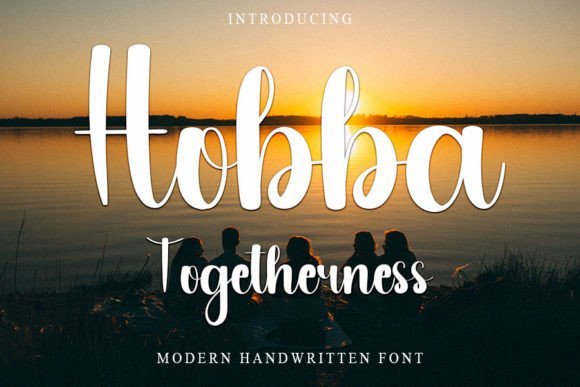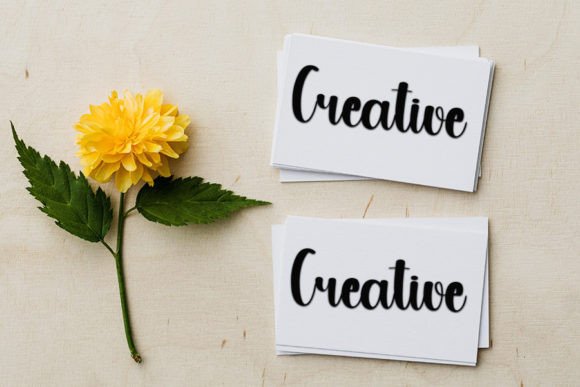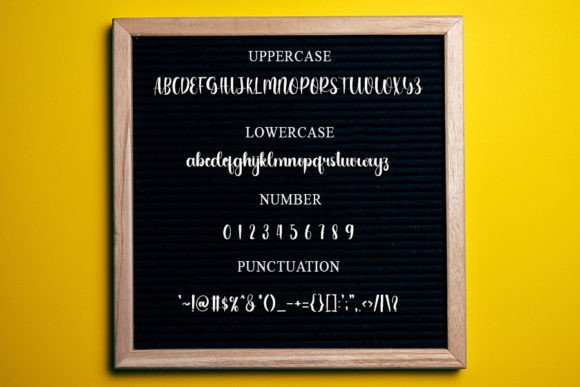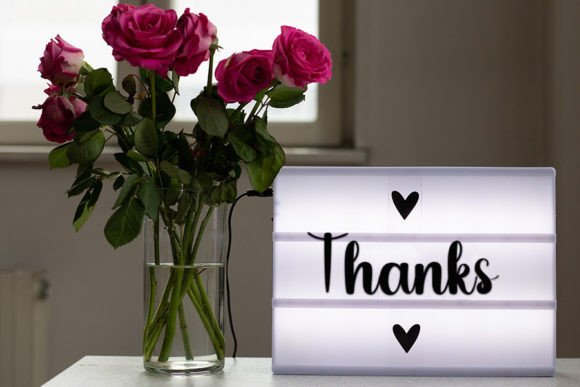
Discover the Magic of the Hobba Togetherness Font
Have you ever been working on a design project and suddenly, the perfect font pops into your mind? That’s exactly what happened to me when I stumbled upon the Hobba Togetherness Font. Its elegant touch and unique style had me hooked from the very beginning. I couldn’t wait to experiment with it and see what amazing designs I could create.
The Hobba Togetherness Font is a beautiful handwritten font that’s perfect for adding a touch of personality to your projects. Whether you’re a seasoned designer or just starting out, this font is sure to bring your designs to life. Its timeless style and distinct character make it a valuable addition to any designer’s toolkit, allowing you to create spectacular designs that truly stand out.
Hobba Togetherness Font Key Features
- Unique Characteristic: Unique, playful, and hand-drawn style with a mix of rounded and pointed shapes
- Weight and Style: Available in 3 weights (Light, Regular, Bold) and 2 styles (Regular, Italic)
Hobba Togetherness Font Review
I recently had the chance to work with the Hobba Togetherness Font, and I must say it’s an interesting addition to any designer’s toolkit. Here are my thoughts on what works well and what could be improved.
- Unique Character Set: The Hobba Togetherness Font comes with a wide range of unique characters, making it perfect for designers who want to add a personal touch to their projects.
- Good Legibility: Despite its quirky nature, the font is surprisingly legible, making it suitable for body text and even headlines.
- Fun and Playful: The font’s whimsical feel makes it ideal for projects that require a lighthearted tone.
- Limited Font Sizes: The font’s design can become overwhelmed at larger font sizes, which may limit its use in certain contexts.
- Lack of Consistency: Some characters may appear slightly inconsistent in terms of design, which can affect the overall cohesion of a project.
Overall, I would say that the Hobba Togetherness Font is a fun and unique addition to any designer’s toolkit. While it may have some limitations, its playful nature and good legibility make it a great choice for projects that require a lighthearted tone.
The Hobba Togetherness Font is ideal for:
- Creating custom logos and branding materials.
- Designing visually appealing headings and titles.
- Adding a personal touch to presentations and documents.